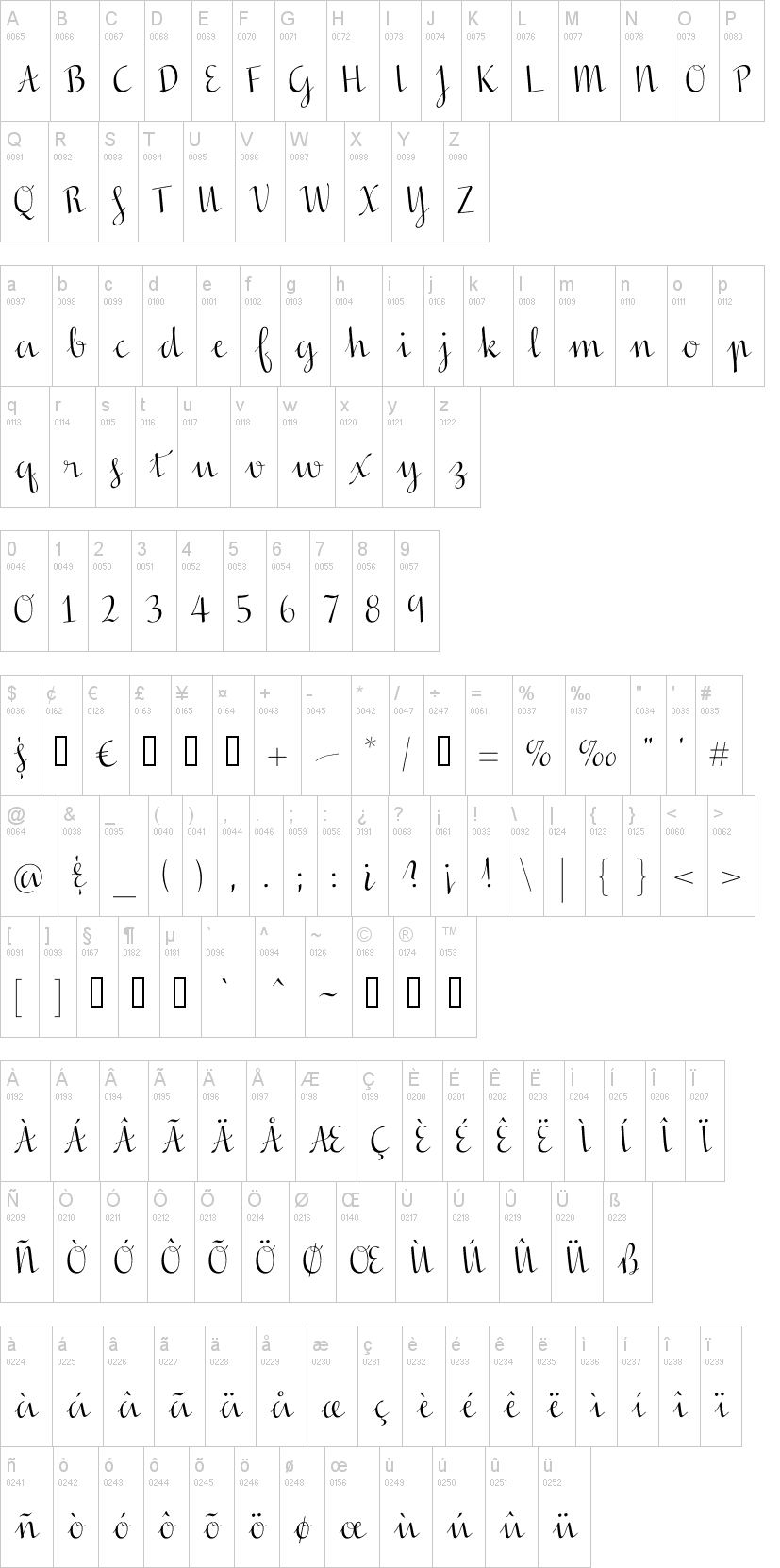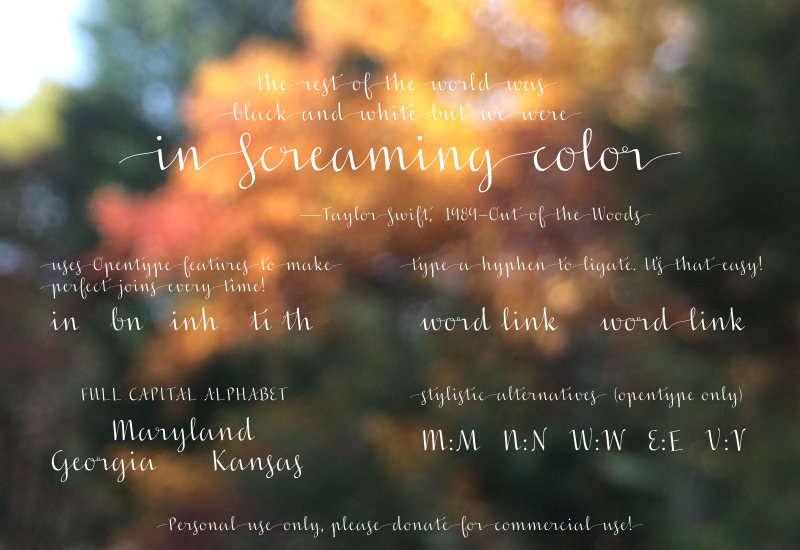
Note of the authorIn Screaming Color is a cursive calligraphic font which contains sophisticated font features that allow it to be rendered with smooth connections (which the dafont renderer may or may not show). Please donate for commercial use (see the readme in the download).
Now includes accented characters!